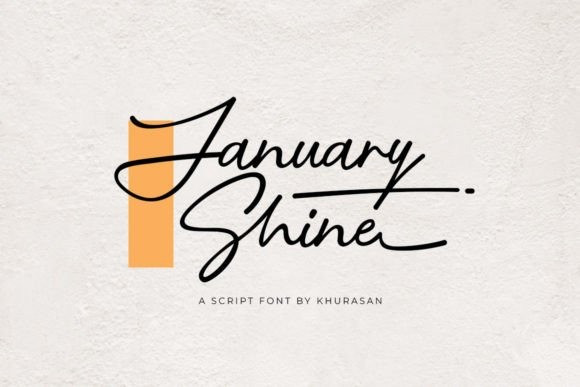
January Shine Font
January Shine Script Font is a modern beaty & elegant script font perfect for posters, logos, magazines, book covers, banners, and many more! Get this amazing freebie, and use it to create lovely designs!